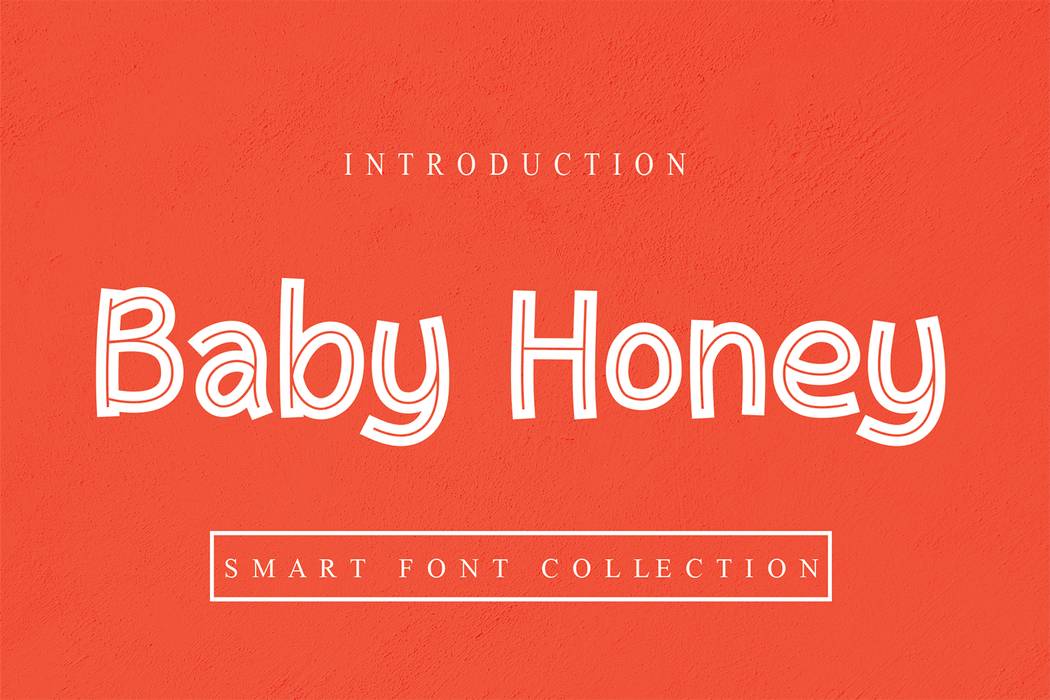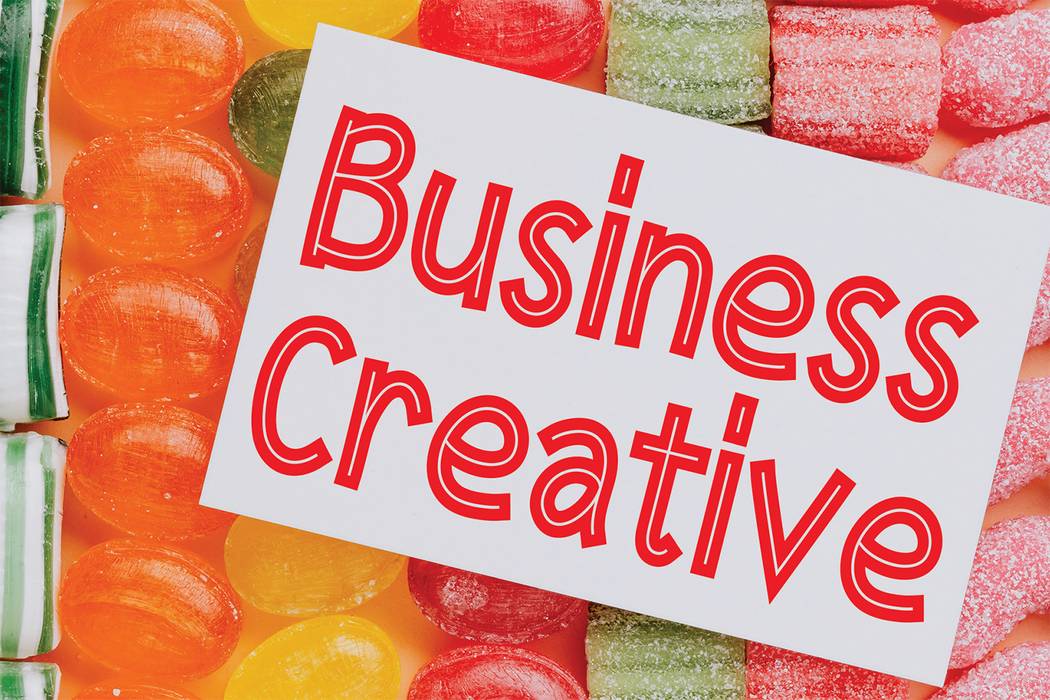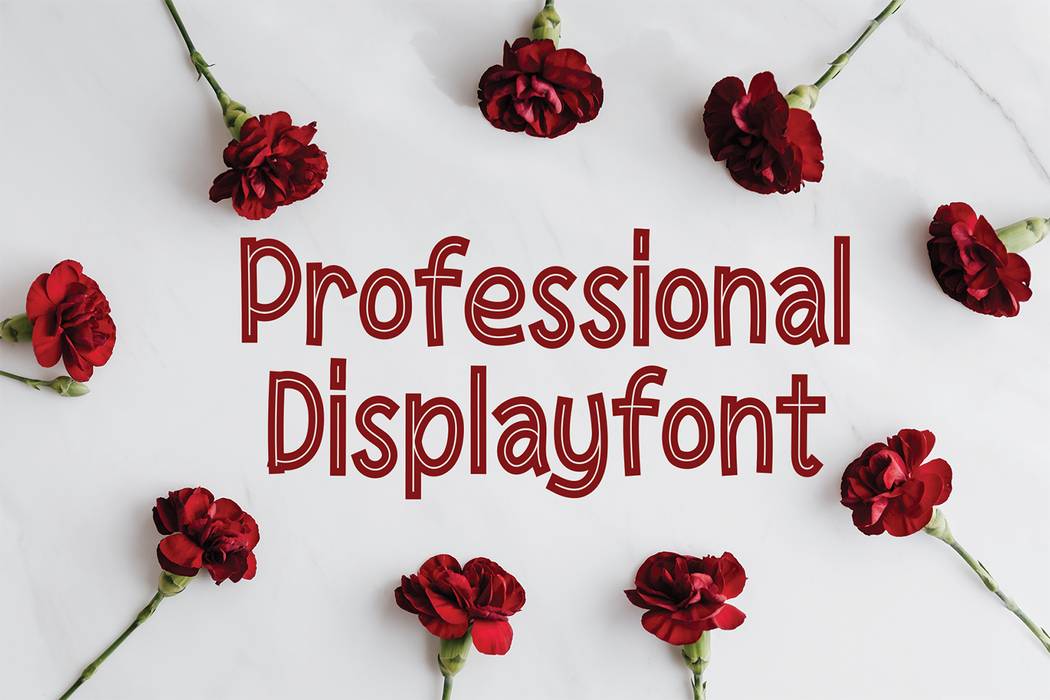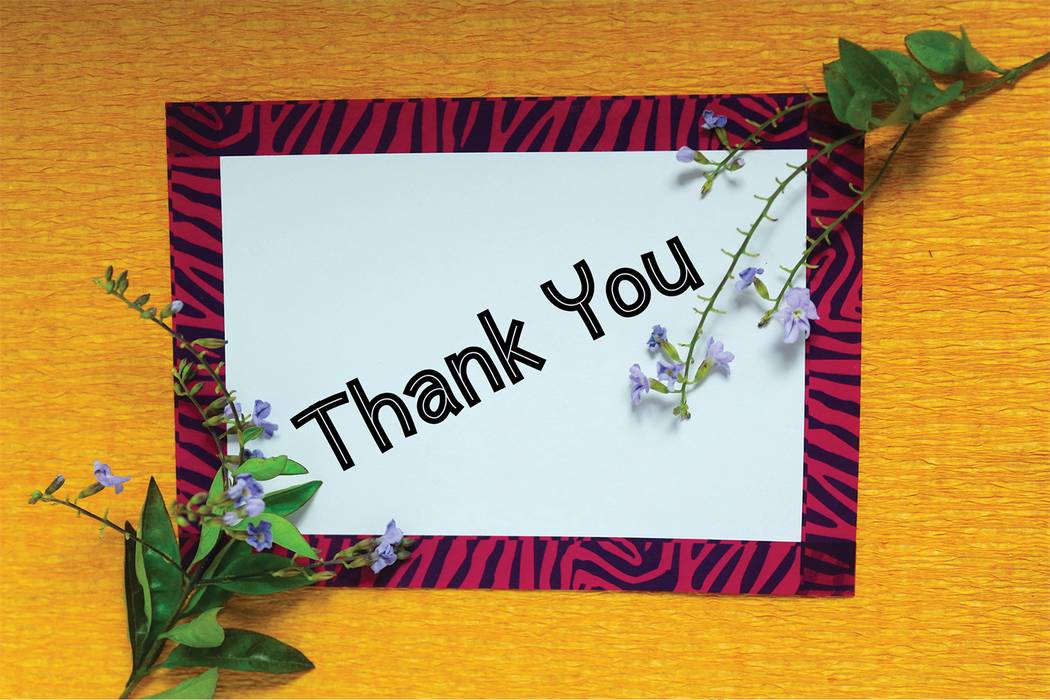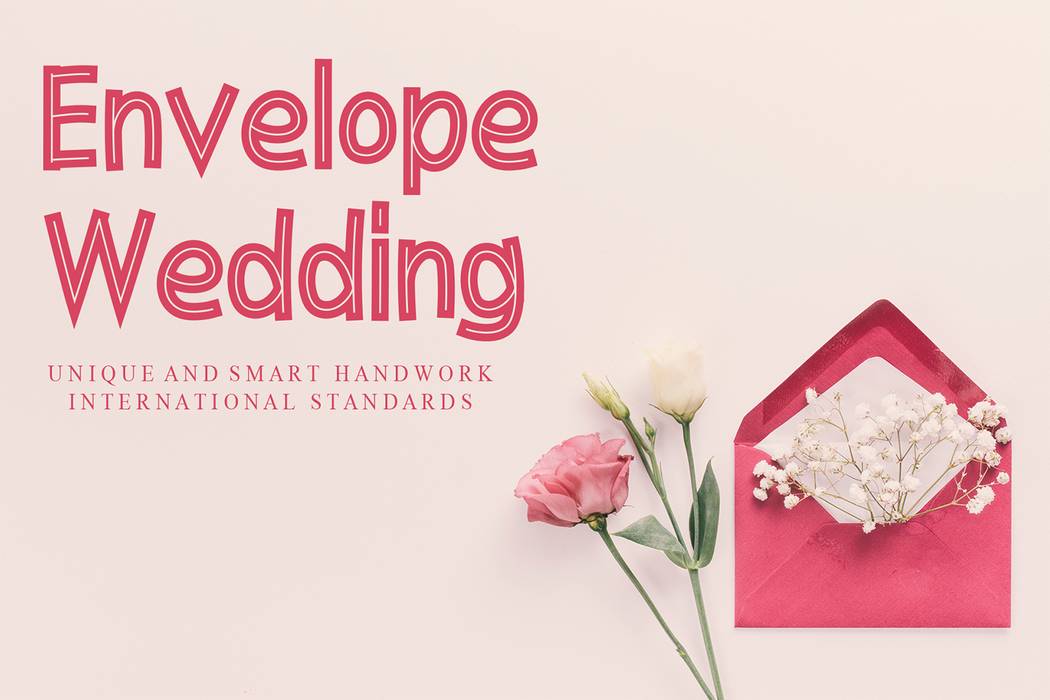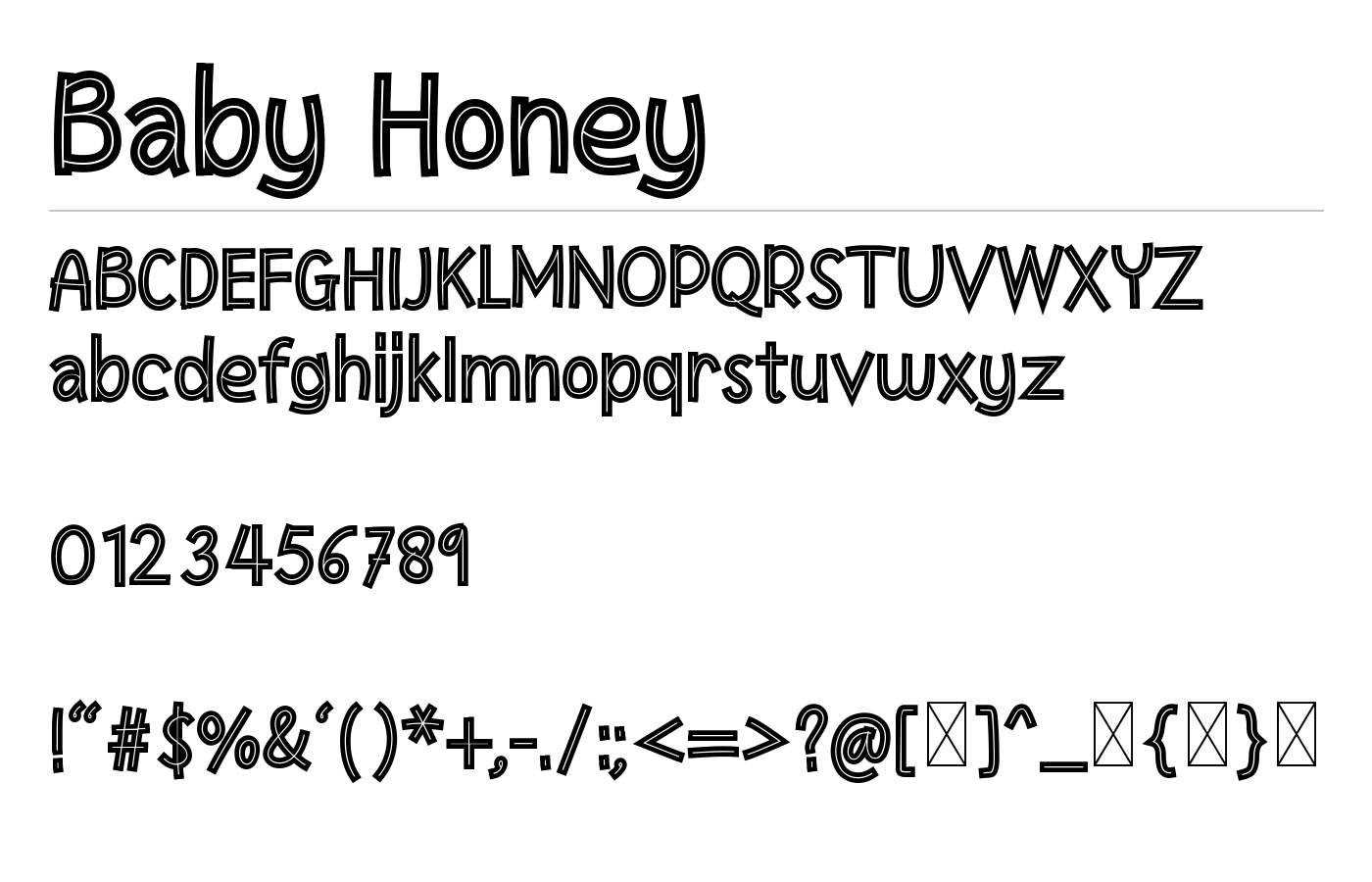
Baby Honey is a playful and decorative sans serif font with a friendly, hand-drawn style that features layered, outlined letterforms giving it a lively, dynamic feel. Its moderate weight and tall x-height make it easy to read while its quirky shapes and slightly irregular lines add charm and personality, perfect for children's projects, casual branding, and fun display uses. This font works especially well for headlines, logos, and packaging that seek a cheerful, approachable vibe.
Baby Honey Font